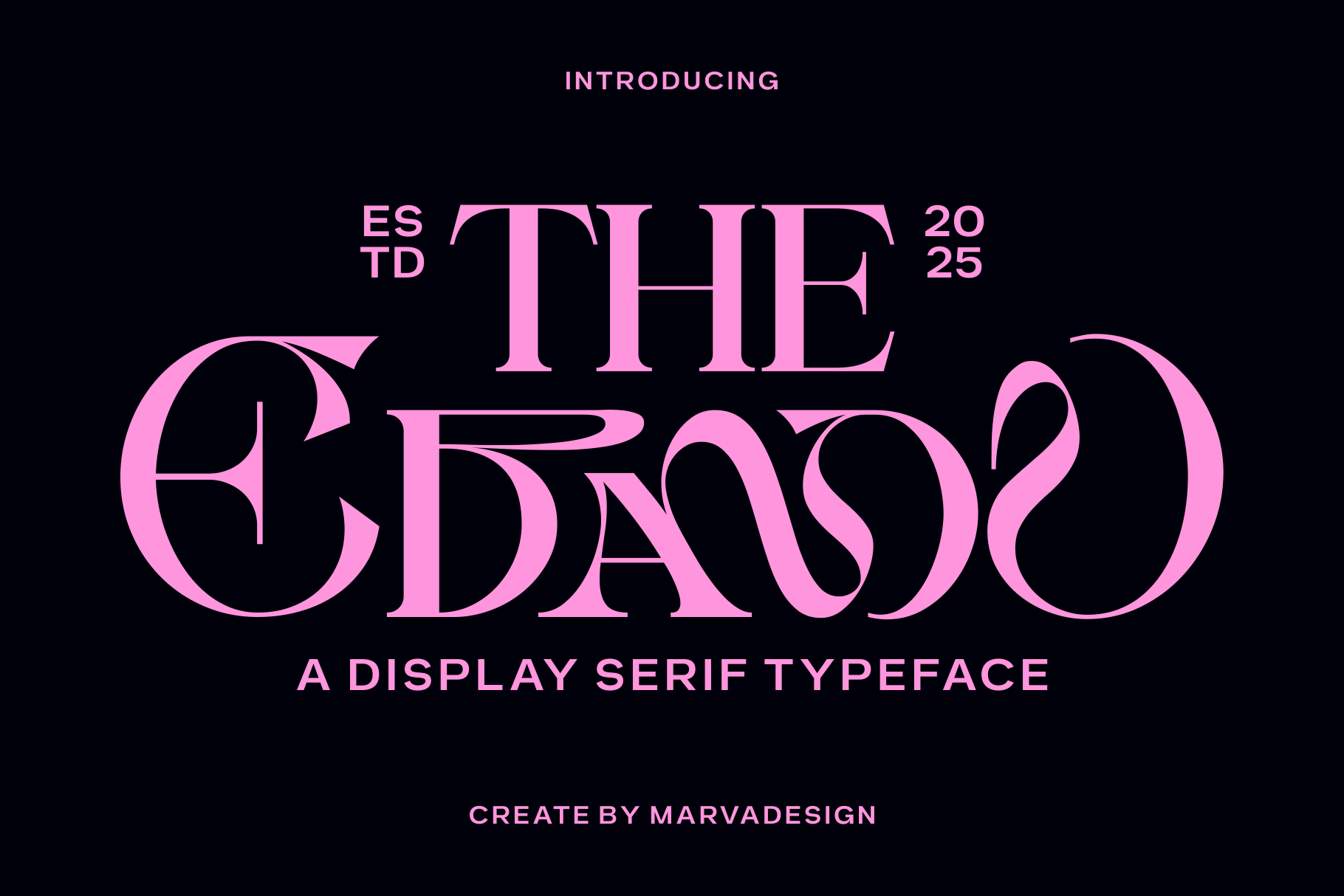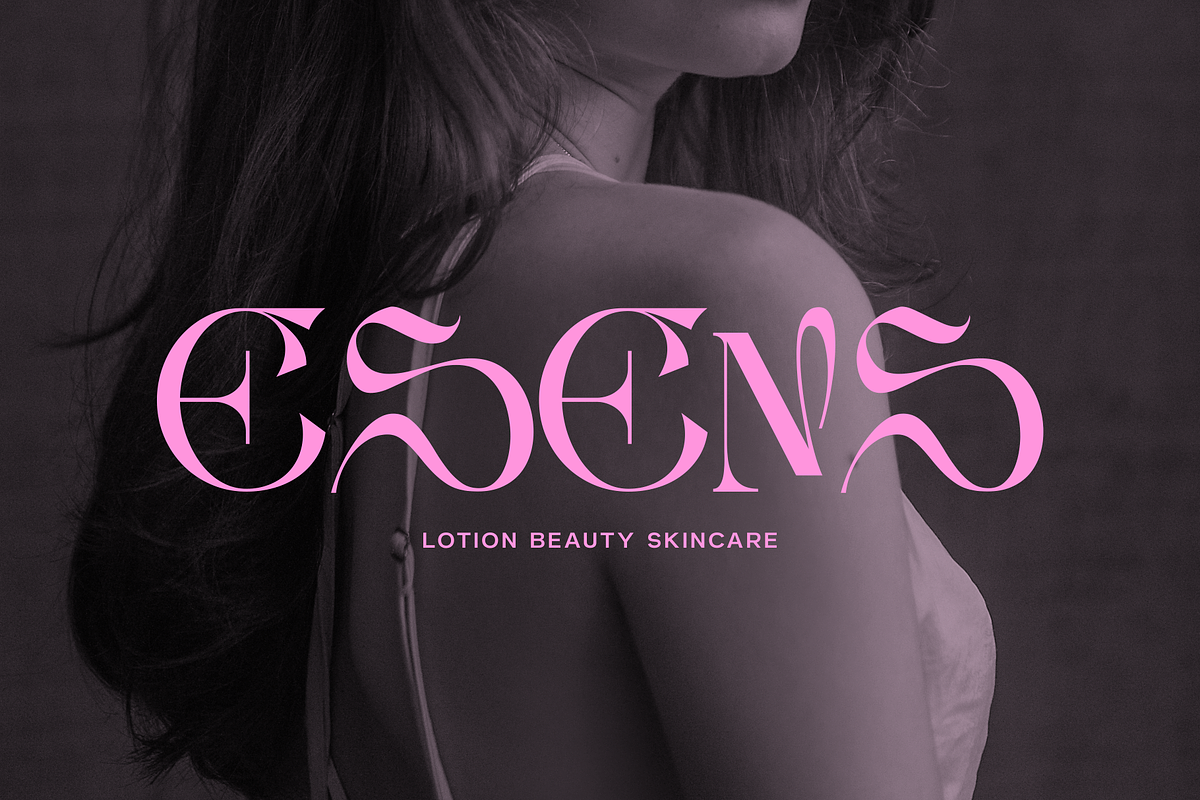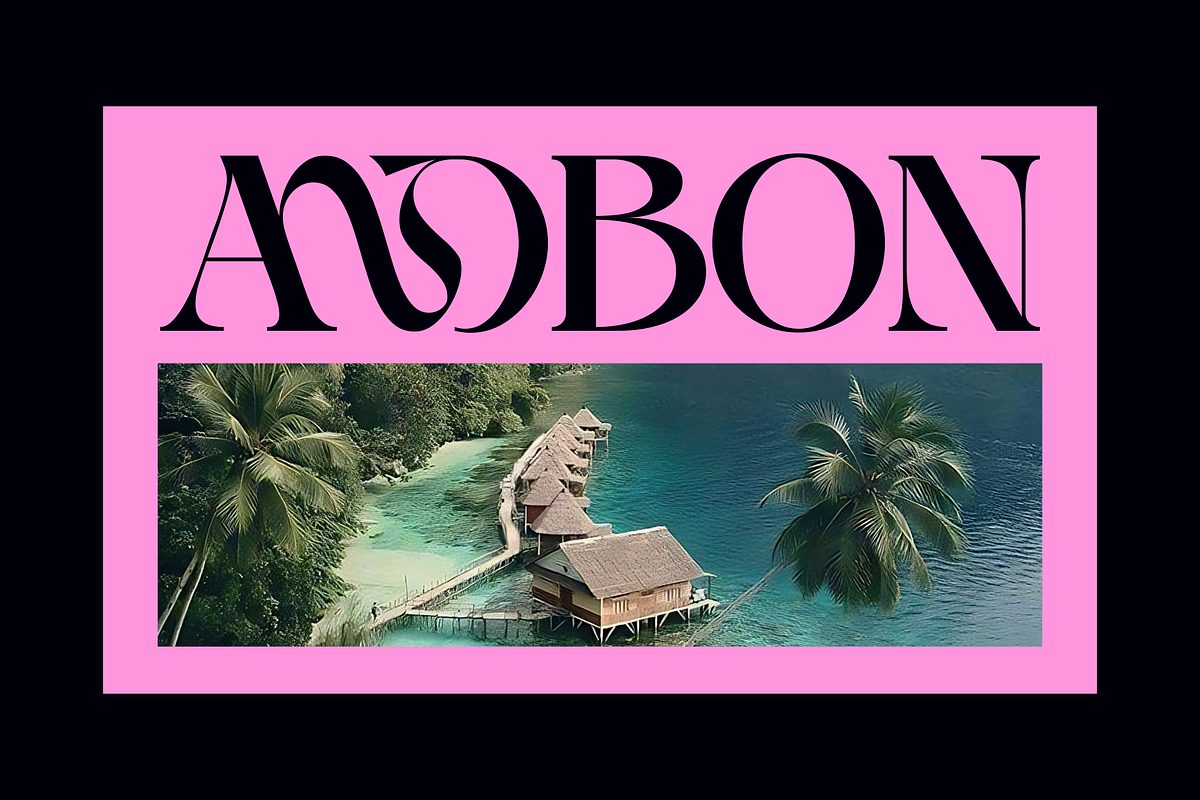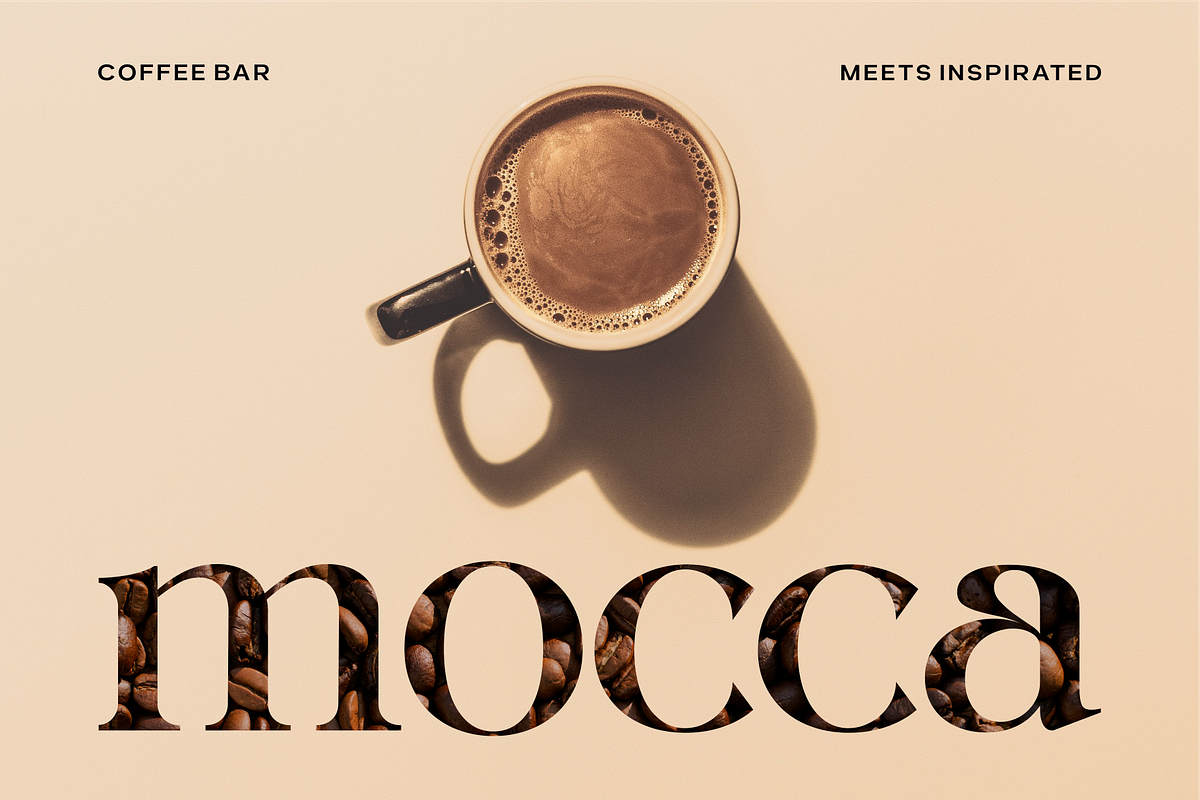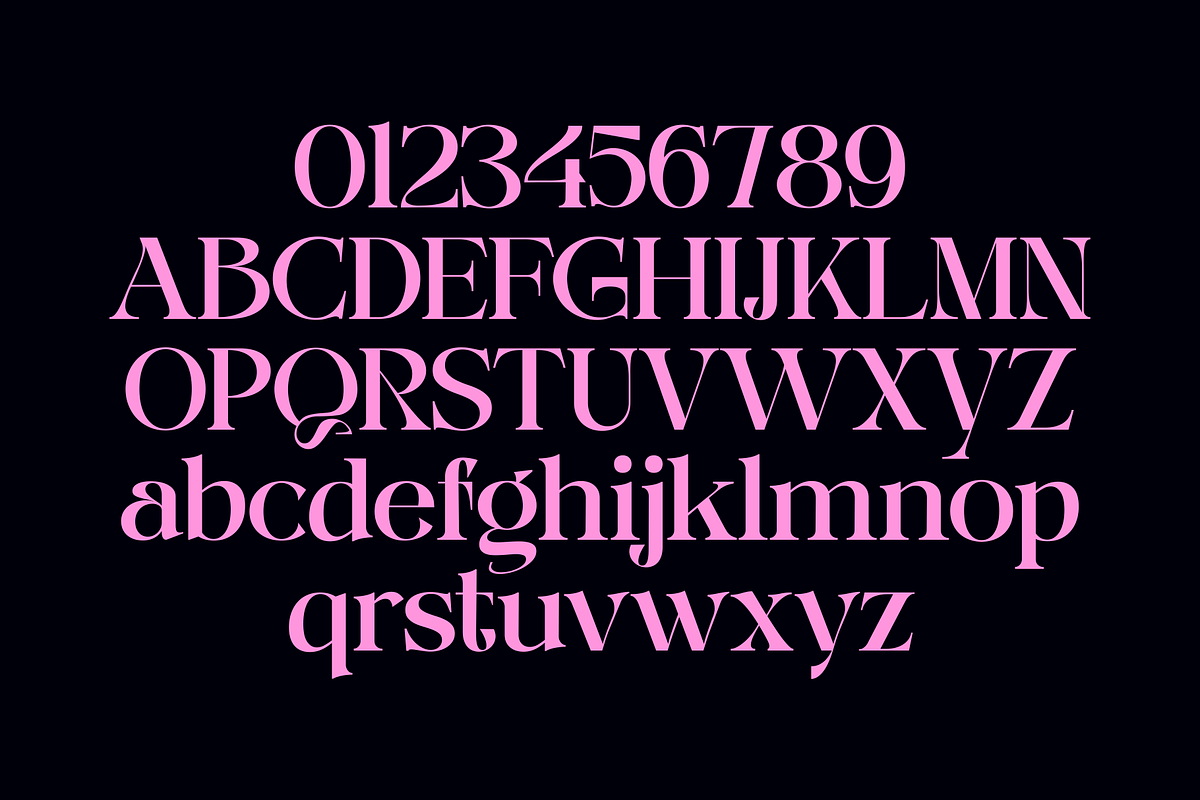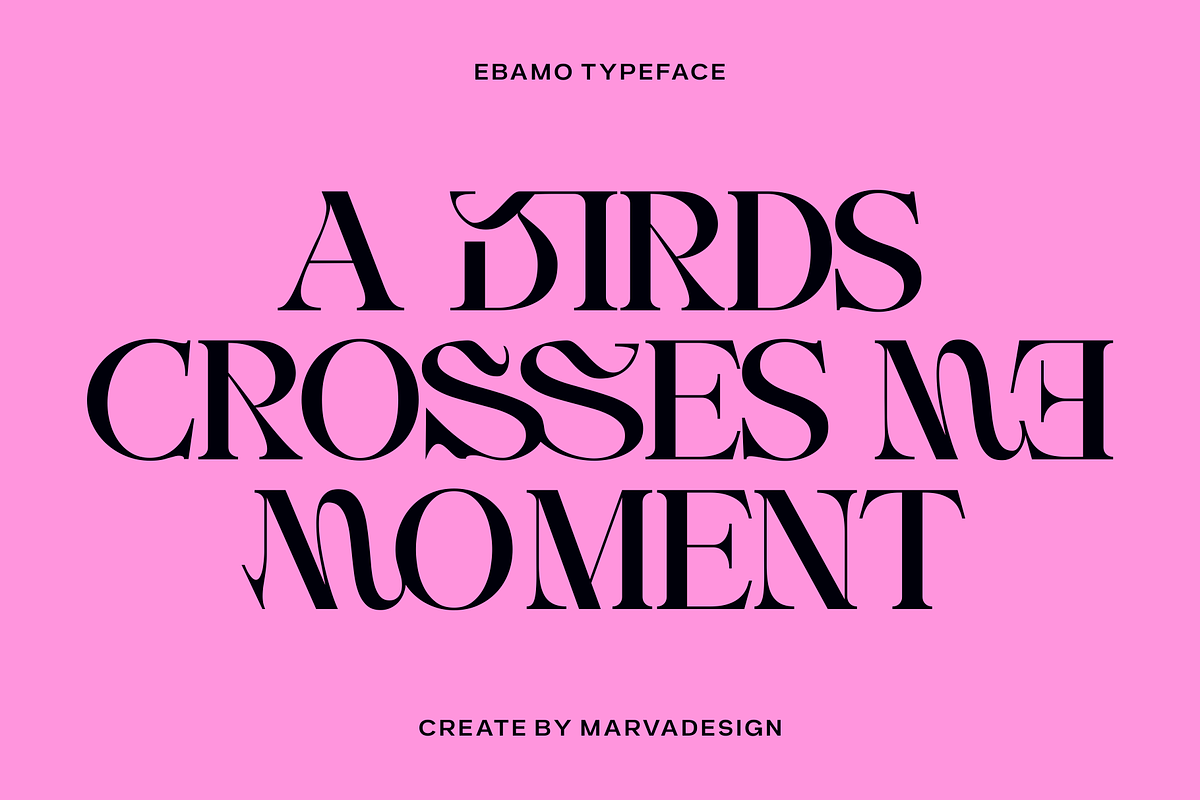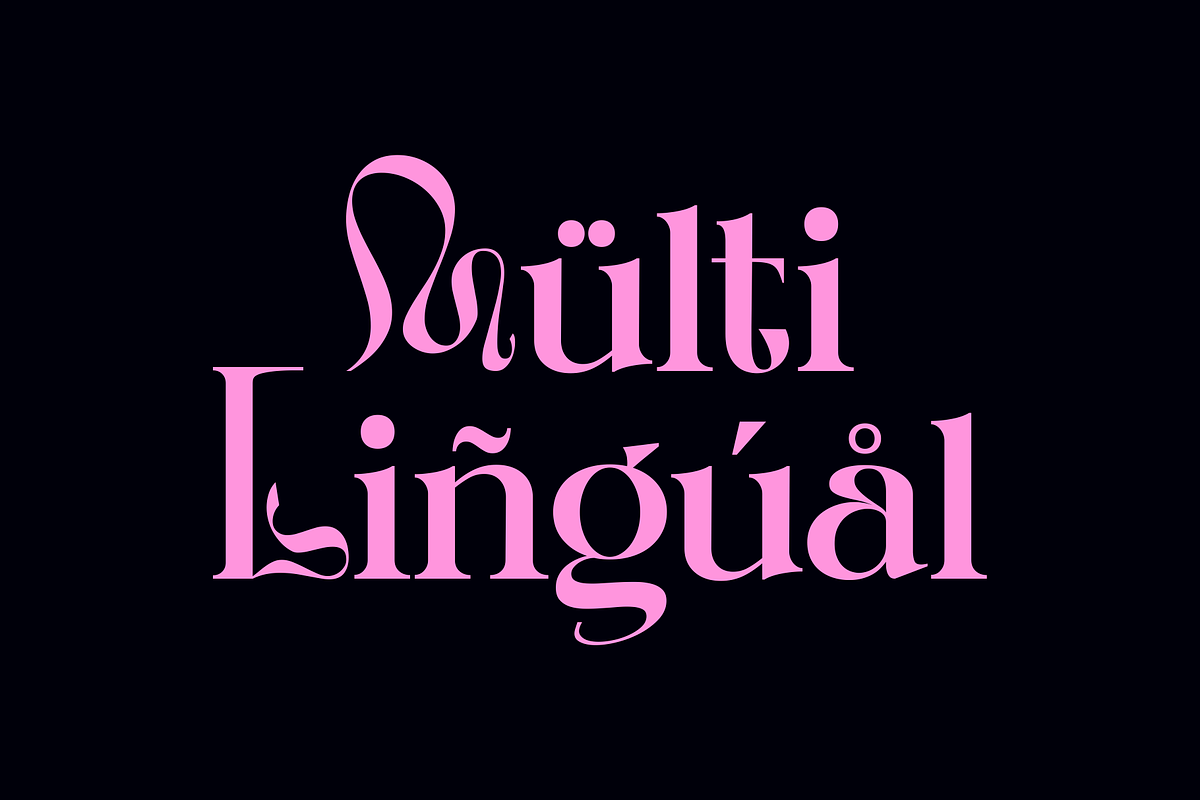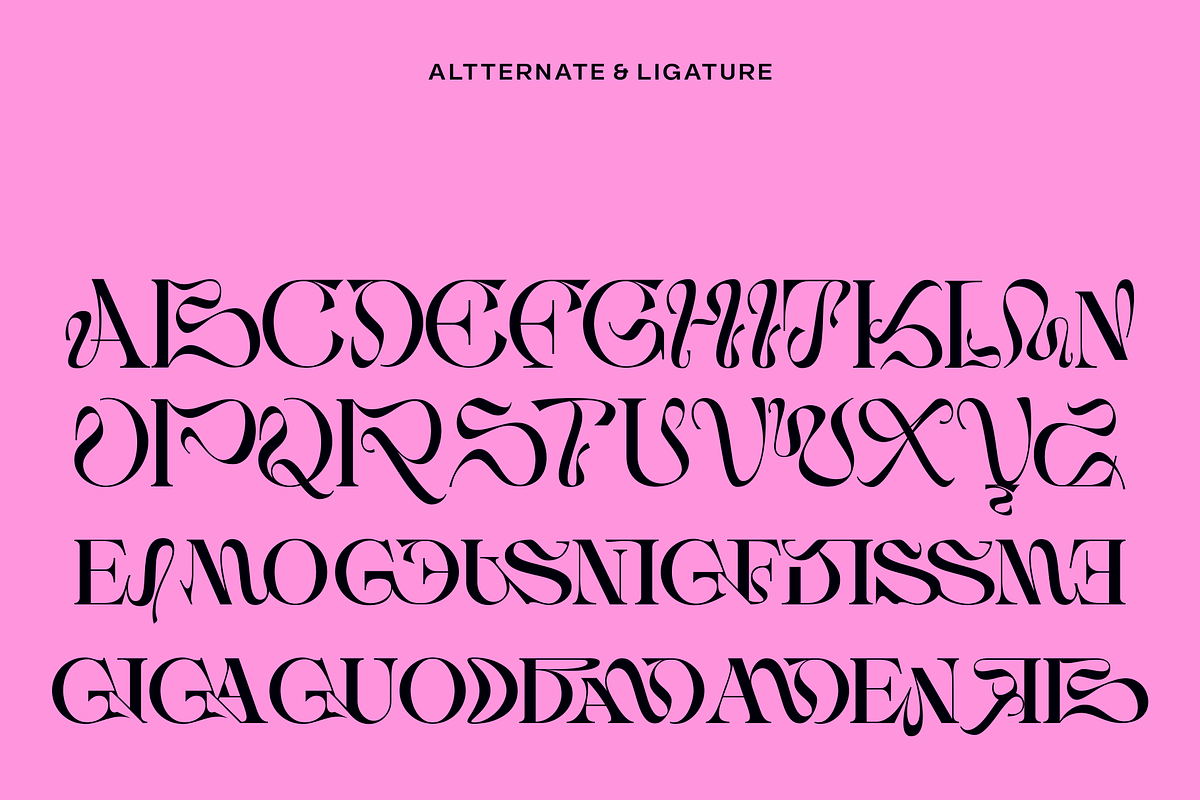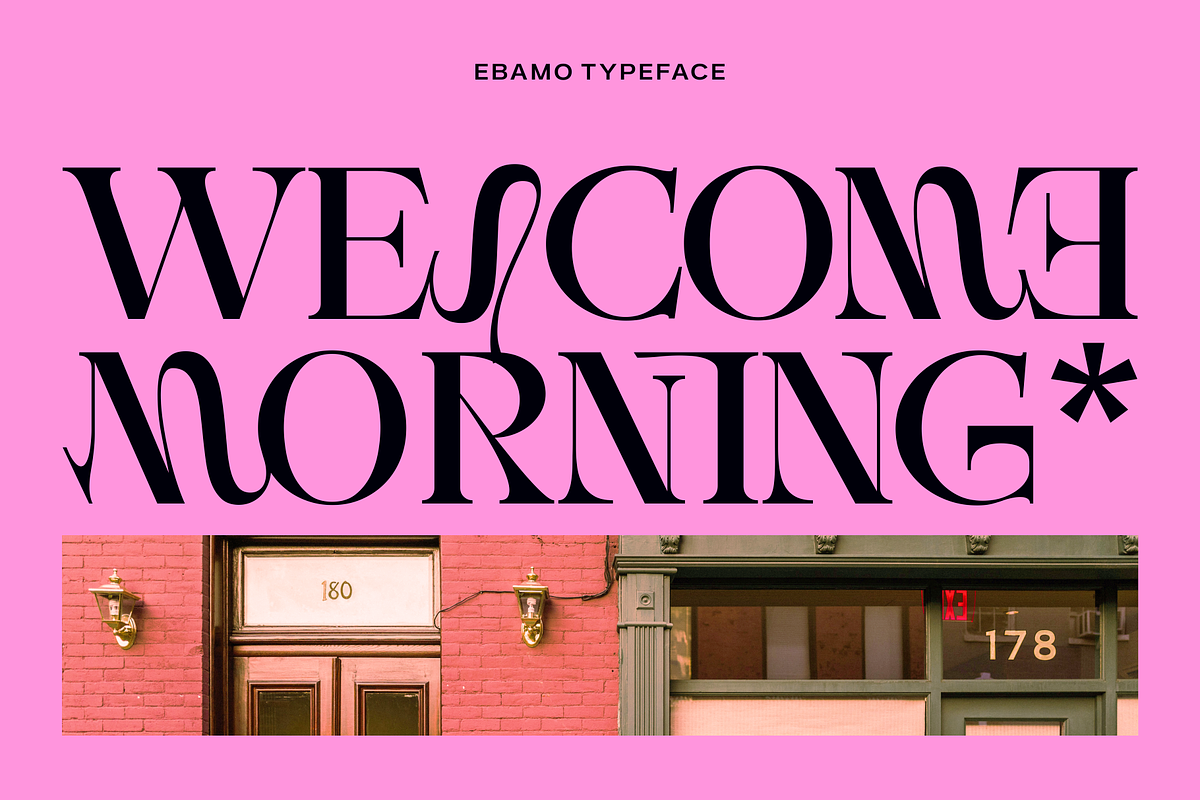
Ebamo - Serif Display Font
Ebamo is a bold and expressive display serif typeface that blends elegance with an avant-garde twist. Its striking letterforms feature high contrast between thick and thin strokes, while the smooth curves and sharp edges create a sense of movement and sophistication. Ebamo stands out with its unique alternates and ligatures, adding an artistic rhythm that transforms every word into a visual statement. Perfect for high-end branding, fashion editorials, packaging, and modern design projects, Ebamo captures both luxury and creativity.